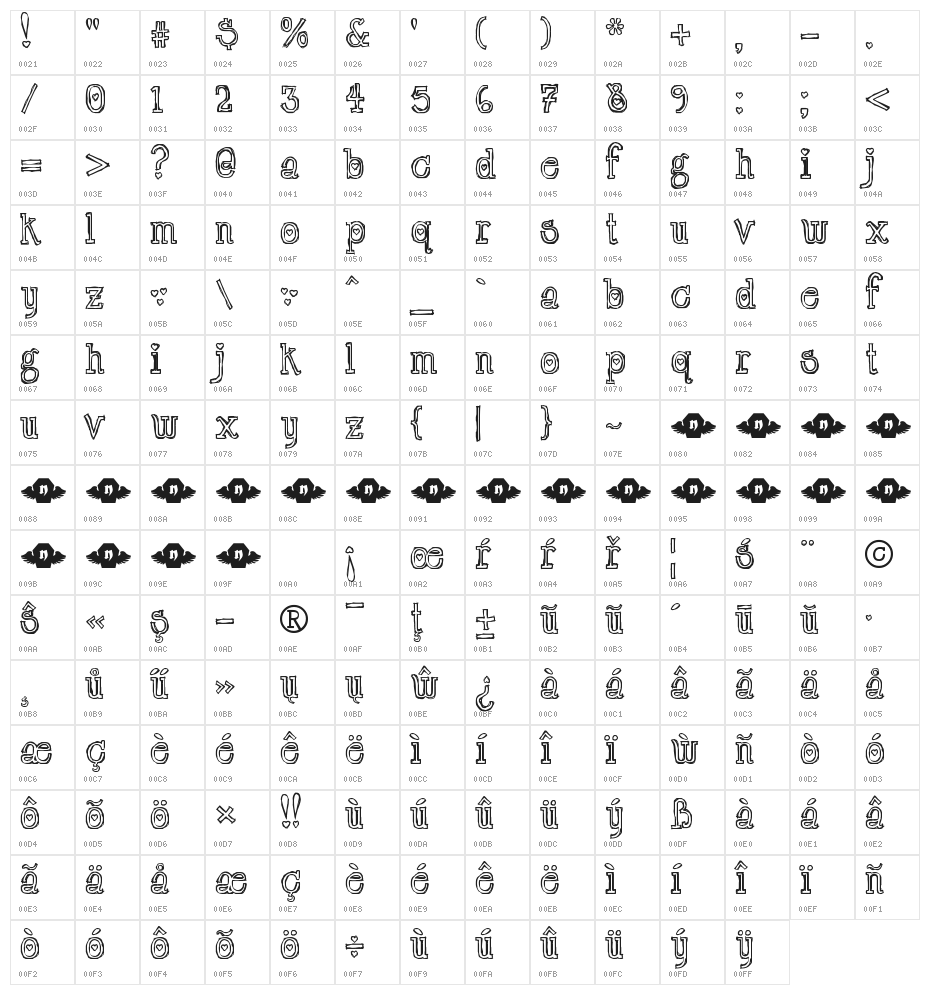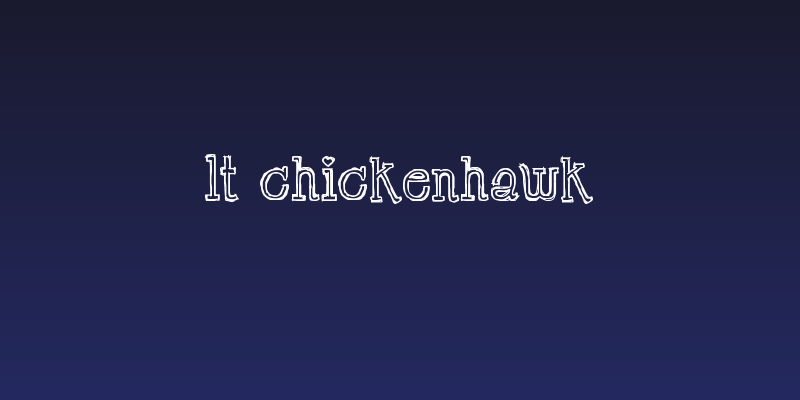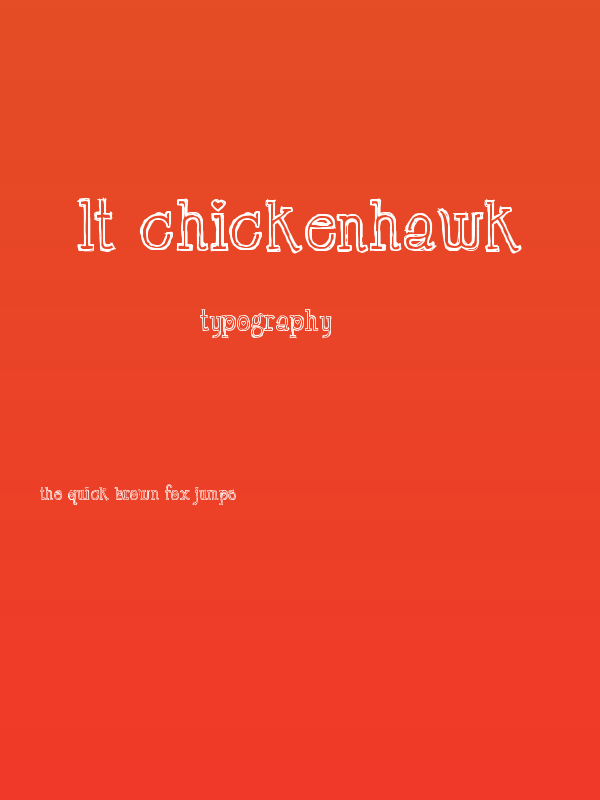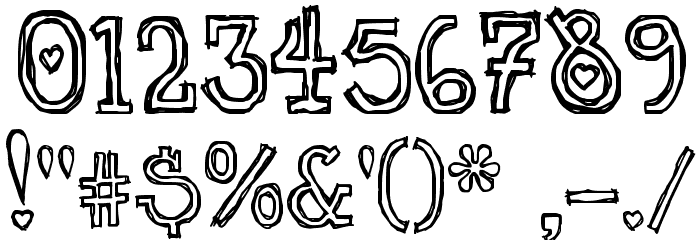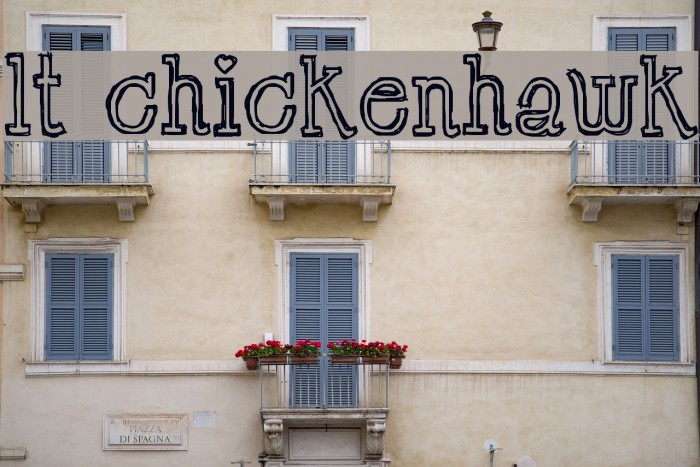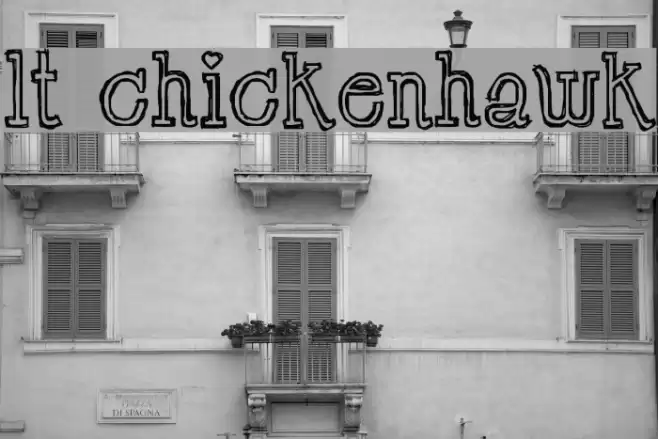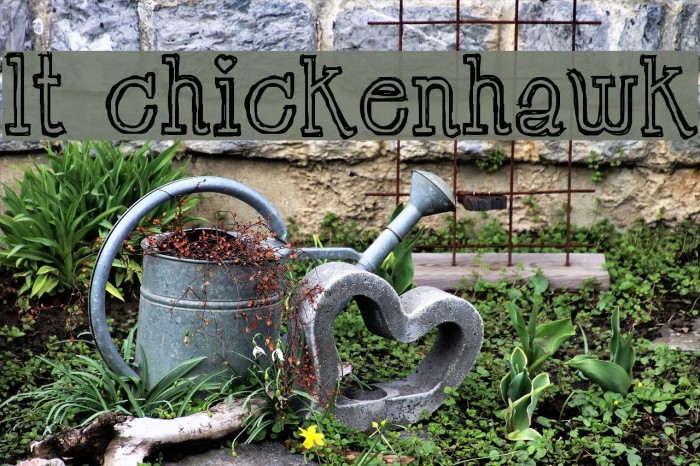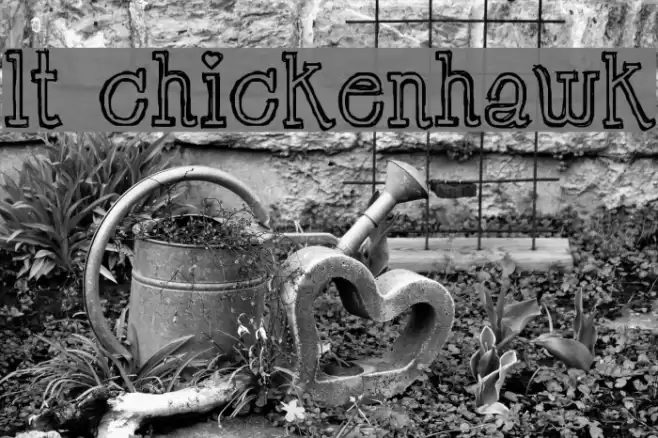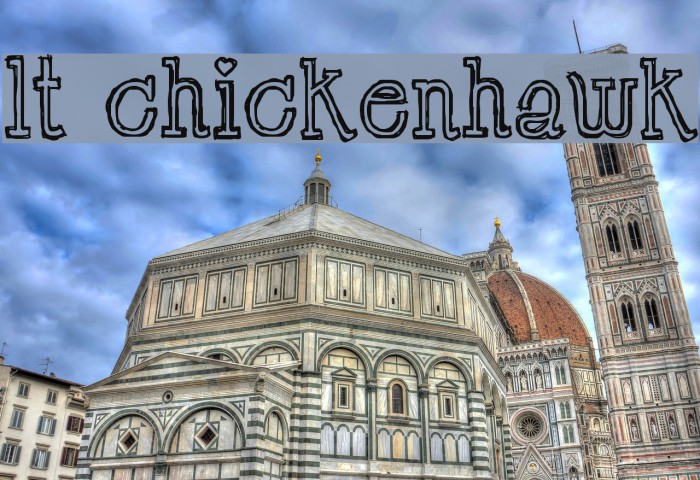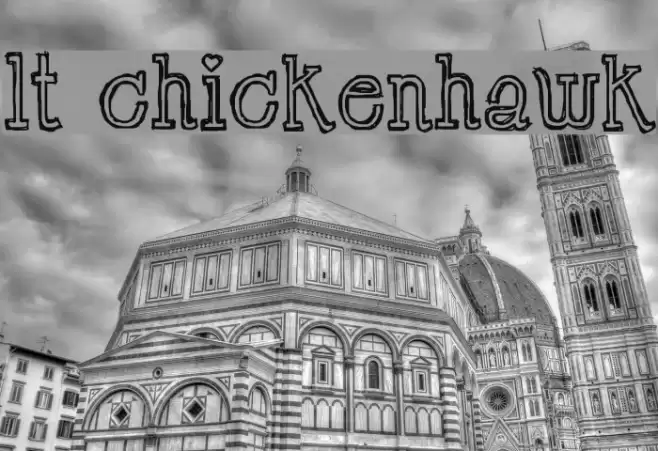
LT Chickenhawk Font
| カテゴリ | Crazy |
| 全体的なスタイル | Whimsical, Artistic, Playful |
| 用途 | Headlines, Logos, Creative projects |
| おすすめプロジェクト | Ideal for children's books, greeting cards, playful branding, and creative projects. |